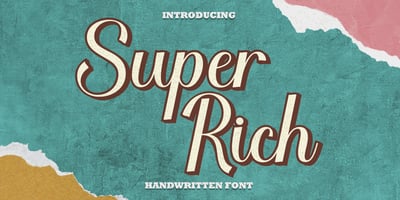
Super Rich Font Family was designed by Haikal Juanda and published by Pista Mova. Super Rich contains 2 styles and family package options. Super Rich Inspired by Vintage style and combined with Hand Lettering style. Each curve has a touch of my personality because I use my manual handling brush. Great for creating logotypes, branding, promotional ads, quote designs, packaging, t-shirt designs. merchandise, posters, merchandise, social media and much more.FEATURE :UppercaselowercaseNumberpunctuationMultilingualPUA codingopen typeIf you have any questions, please contact me.Thank you 🙂